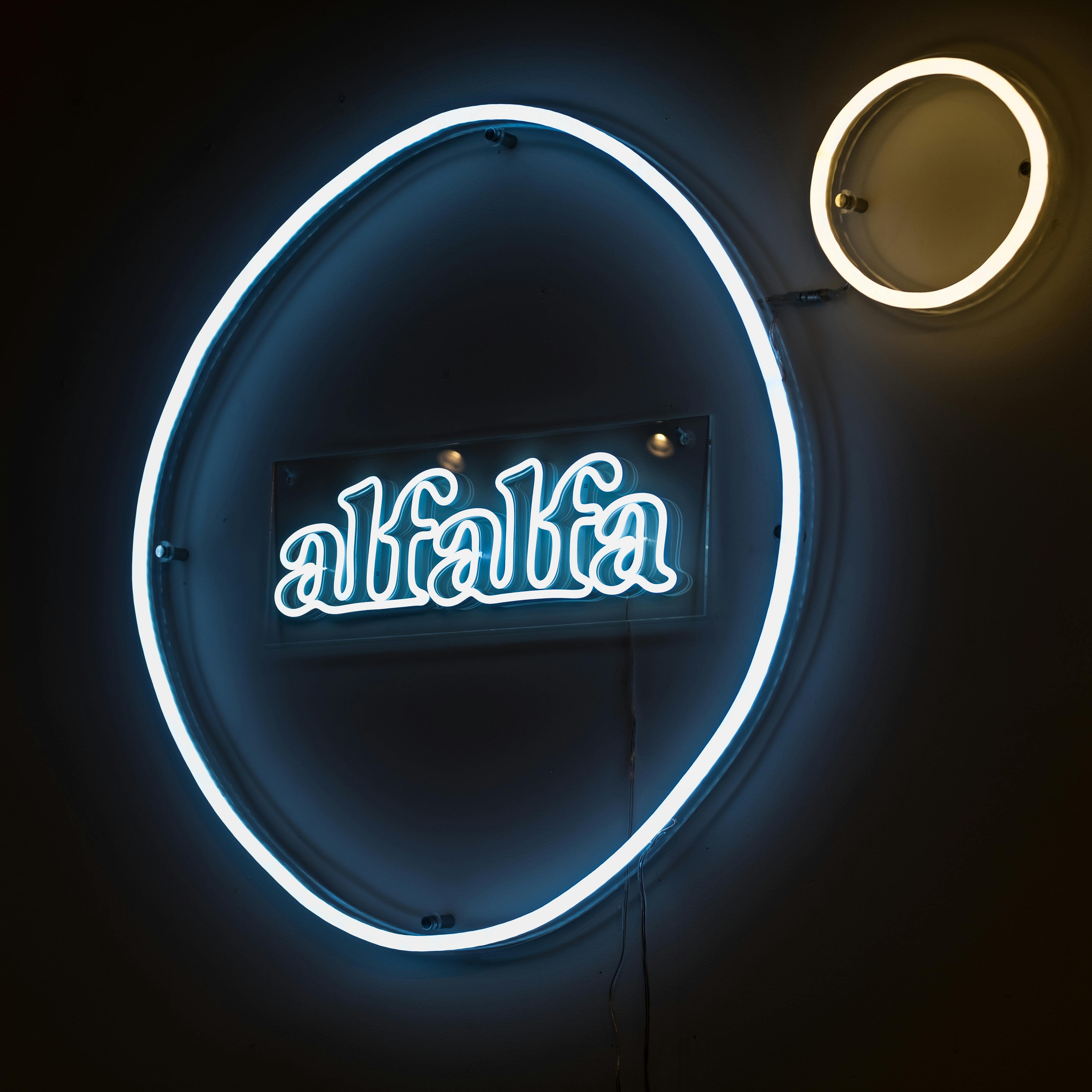
What is Neon Light Typeface?
In the world of design, few elements capture the eye like the vibrant glow of a Neon Light Typeface. This style, reminiscent of neon signs, has become a powerful tool for branding and logo design. Its aesthetic appeal lies in its fusion of nostalgia and modernity, offering a sense of warmth and vibrancy that draws attention and evokes emotion. Whether you’re strolling through bustling city streets or browsing through a digital marketplace, the allure of neon typography is hard to miss.
History and Evolution of Neon Light Typeface
The journey of the Neon Light Typeface is as colorful as the lights themselves, with roots deeply embedded in the history of neon signage.
The Birth of Neon Signage
Neon lights first flickered to life in the early 20th century, thanks to the innovations of French engineer Georges Claude. He showcased the first neon sign at the Paris Motor Show in 1910, mesmerizing audiences with their luminescent glow. Neon signs quickly became synonymous with advertising, lighting up storefronts and cityscapes around the world. As noted by the Neon Museum, the 1920s and 30s saw neon become a staple in urban signage, offering businesses a dazzling new way to capture attention.
Transition to Digital Typography
As technology evolved, so did the potential for neon-inspired design. The digital age allowed designers to translate the allure of neon lights into typography, giving birth to the Neon Light Typeface. This transition was not just about mimicking the glow but capturing the essence and emotion of neon. Today, digital design platforms offer a variety of neon fonts that replicate the intricate curves and vivid colors of traditional neon. MyFonts offers a wide range of neon fonts, blending vintage flair with modern design capabilities.
Characteristics of Neon Light Typeface
The Neon Light Typeface is not just about bright colors; it’s a blend of distinctive visual elements and emotional impact.
Visual Elements
Neon typefaces are characterized by their smooth curves, mimicking the glass tubes of neon lights. The brightness of these fonts can range from subtle glows to intense, eye-catching hues. Color variations in neon typefaces are vast, with designers often incorporating gradients to emulate the natural fade of neon light. 1001 Fonts offers a collection of neon fonts, showcasing the various styles and innovations within this typeface category.
Emotional Impact
Neon typefaces have a unique ability to evoke emotion. They bring a sense of nostalgia, reminiscent of retro diners and classic marquees, while still feeling fresh and modern. This duality makes them perfect for branding, as they can convey excitement, creativity, and warmth. The luminescent quality of neon typefaces can transform a brand’s identity, making it memorable and inviting.
Applications of Neon Light Typeface in Branding
Brands across industries have harnessed the power of Neon Light Typeface to create striking logos and marketing materials.
Case Studies of Successful Brands
Some brands have become iconic by integrating neon typefaces into their branding. For instance, the vibrant glow of the Las Vegas sign is a testament to the lasting impact of neon design. Brands that effectively use neon typefaces often do so to stand out in a crowded market, creating an unforgettable visual identity that resonates with audiences.
Design Considerations
When choosing a neon typeface for branding, it’s important to balance aesthetics with functionality. The font should be legible and align with the brand’s message. Consistency is key; the neon style should be reflected across all branding elements, from logos to social media graphics. Using resources like FontSpace can help in selecting the right neon font that suits your brand’s needs.
Creating Your Own Neon Light Typeface
Designing a custom neon-inspired typeface can be a rewarding creative endeavor.
Tools and Software for Design
Several software options are available for those looking to create their own neon typeface. Adobe Illustrator and Photoshop are popular choices, offering tools to manipulate text and add glowing effects. For beginners, platforms like Canva allow for easy experimentation with neon effects without the steep learning curve.
Tips for Effective Design
To achieve an authentic neon look, focus on using bold, rounded shapes and vivid colors. Ensure that the letters are spaced evenly and that the glow effect is consistent throughout the font. Balance is crucial—too much brightness can overwhelm the design, while subtlety can enhance sophistication. Resources like Envato Elements offer tutorials and templates to guide you in creating a standout neon typeface.
The Neon Light Typeface continues to illuminate the world of modern branding. Its ability to combine nostalgia with contemporary design makes it a favored choice for brands looking to create a bold and memorable identity. Whether you’re a designer seeking inspiration or a brand aiming for impact, exploring the creative potential of neon typefaces can open new avenues for expression. Embrace the glow and let your brand shine brightly in the ever-evolving landscape of design.